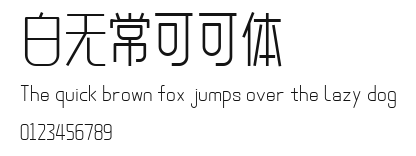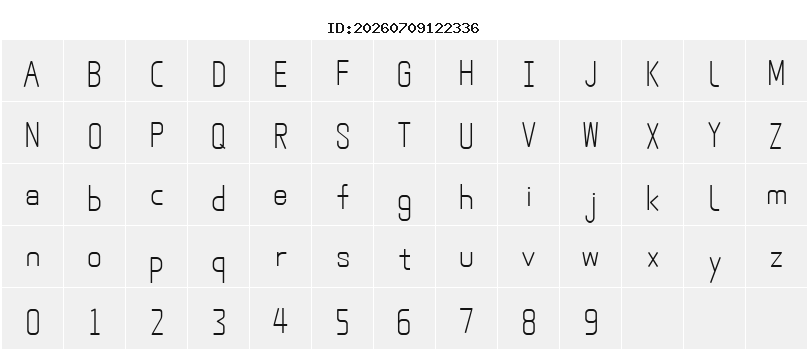
白无常可可体 Preview
• Font Name: 白无常可可体
• Font Style: 常规
• Full Font Name: 白无常可可体常规
• Version: Version 1.00 0701, 2021, initial release
• PostScript Name: BWCKKT-Regular
• Character Count: 7598
• Designer: LBK
• Manufacturer: LBK
About 白无常可可体.ttf
白无常可可体.ttf is a modern, elegant sans-serif font designed for ultimate readability and visual harmony. Perfect for branding, headlines, web design, and print materials.